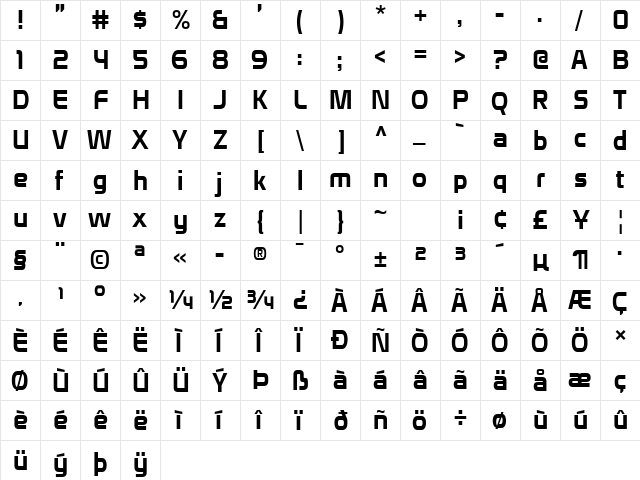
Domyouji Regular
Design Context for Domyouji Typeface
Domyouji takes a measured approach to typography — its balanced proportions and neutral character make it a reliable workhorse for both digital and print work.
Pro Tip: Pair Domyouji with a font of contrasting weight or personality to build a more expressive typographic hierarchy.